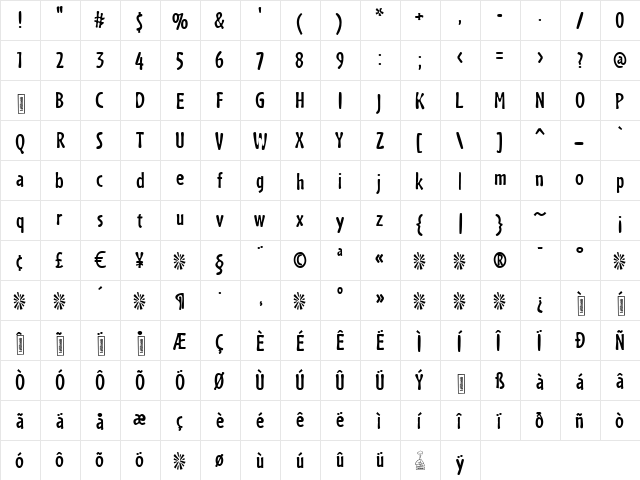
Cafecoco Bold
Design Context for Cafecoco Typeface
Cafecoco offers clean, dependable letterforms without strong stylistic allegiance, making it a practical choice for designers who need flexibility. Its bold stroke weight gives it real presence on the page.